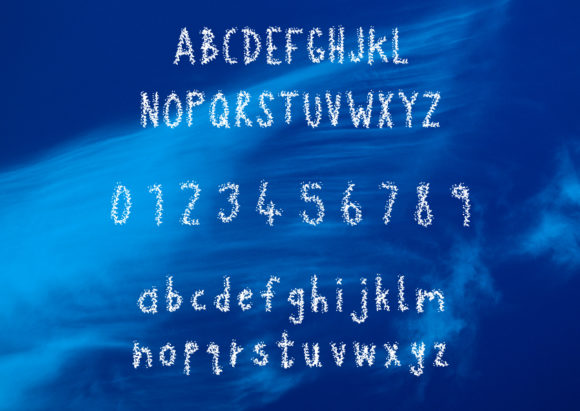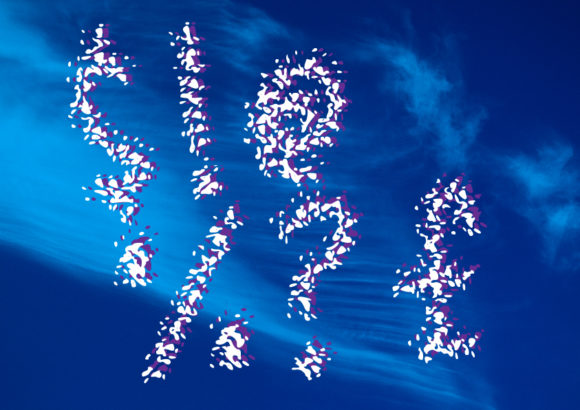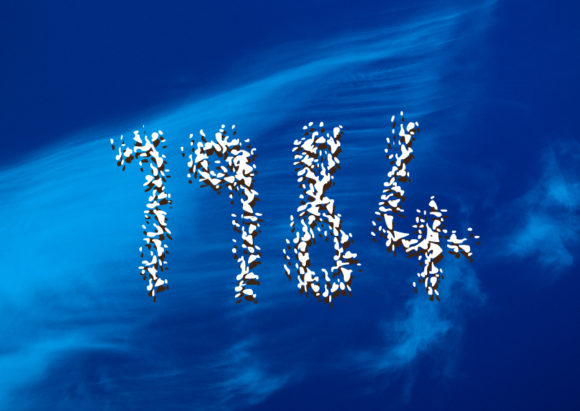
The Bird’s Eye View: How Birds Font Took My Designs to New Heights
I’ll never forget the spring I spent countless hours searching for the perfect font for a client’s Easter-themed crafting project. The brief was simple: find a font that was playful, yet elegant; a font that would make the client’s handmade cards and decorations stand out from the crowd. That’s when I stumbled upon Birds Font, a unique display font that has since become a staple in my design toolkit.
What I Love About Birds Font ✨
• ✅ Unique and eye-catching design that’s perfect for spring-themed projects
• ✅ Highly legible, even at larger font sizes
• ✅ Supports OpenType features, glyphs, and stylistic alternates for added versatility
• ✅ Works beautifully with both digital and print media
• ⚠️ May not be suitable for body text or smaller font sizes due to its decorative nature
• ⚠️ Limited character set compared to other fonts, but still offers a range of glyphs and alternates
The Story Behind Birds Font
Birds Font was designed by a team of creatives who wanted to capture the essence of spring in a unique and eye-catching way. Inspired by the beauty of birds and the outdoors, they crafted a font that’s both playful and sophisticated. Whether you’re a designer, crafter, or hobbyist, Birds Font is sure to bring a touch of springtime magic to your projects.
Font Name Birds Font
Author GraphicsBam Fonts
What type of projects is Birds Font best suited for? Birds Font is perfect for spring-themed projects, crafting, and decorative designs. It’s ideal for making a statement with headings, titles, and captions.
Does Birds Font support OpenType features? Yes, Birds Font supports OpenType features, glyphs, and stylistic alternates, making it a versatile choice for designers.